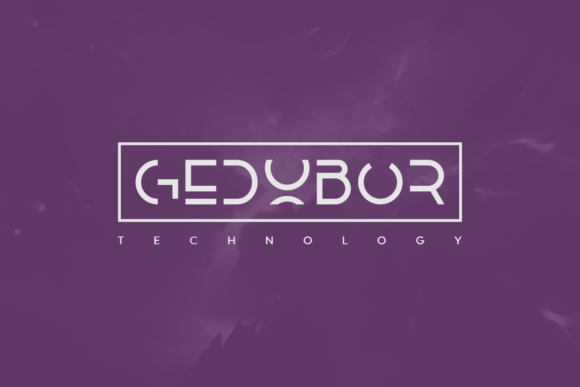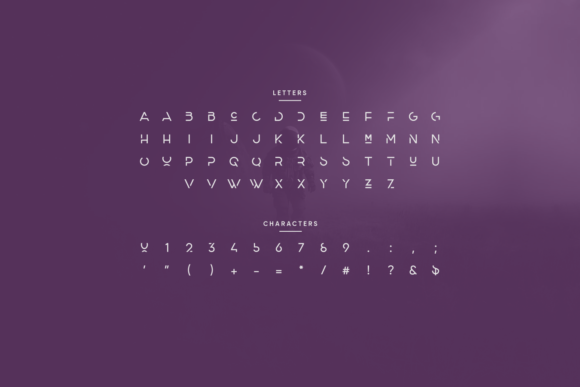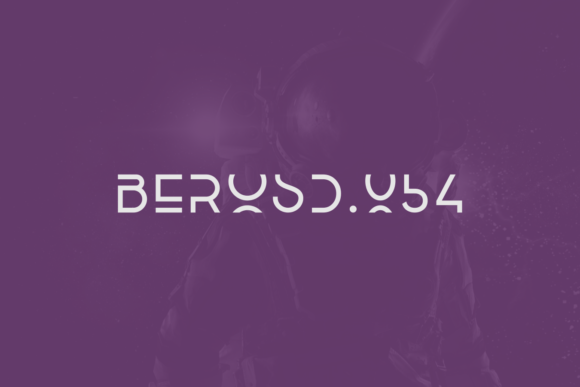
The Birth of a Timeless Design
Have you ever been so captivated by a font that you knew it would be the perfect fit for your next design project? For many designers, this moment is a dream come true, and it’s exactly what happens when you come across the Bospore Font. This stylish, clean, and minimalistic font exudes luxury and elegance, making it a perfect choice for any business or branding project.
With two unique styles and dynamic cuts, the Bospore Font is a versatile tool that can be used in a variety of applications, from logos to brochures and posters. Its geometric sans and unfinished impressions create a sophisticated effect, while the harmonious combination of uppercase and lowercase matching accents support the best legibility.
Bospore Font Key Features
- Font Family: Bospore Font is a unique, modern sans-serif font with a distinctive character set.
- Language Support: Bospore Font supports multiple languages, including Latin, Cyrillic, and Greek scripts, making it ideal for global designs.
- Unique Characteristics: The font features a distinctive rounded edge and a unique x-height, giving it a modern and sleek appearance.
Bospore Font Review
Overall, I think the Bospore Font has some great qualities, but also some areas that need improvement. Let’s dive into the good and the not-so-good.
- ✨ The Bospore Font has a unique and modern aesthetic that’s perfect for digital design projects.
- ✨ The font is highly legible, even at smaller font sizes, making it great for body text and other long-form content.
- ✨ The font’s versatility allows it to be used in a variety of contexts, from headings to footers.
- ⚠️ The Bospore Font can feel a bit too playful and whimsical for more formal or professional projects.
- ⚠️ Some users may find the font’s irregular shapes and letterforms to be distracting or hard to read at first glance.
- ⚠️ The font’s weight and contrast could be improved to make it more suitable for high-contrast designs.
In conclusion, the Bospore Font is a great choice for modern and playful designs, but may not be the best fit for more formal or professional projects. With some tweaks and adjustments, I think this font has a lot of potential.
For best results, use Bospore Font in headings and titles to add a touch of elegance and sophistication.
- Travel and adventure branding
Alternatives to Bospore Font for Designers
Playfair Display is an elegant, high-end serif font that is perfect for luxury branding, fashion, and high-end packaging designs. It features intricate details and flourishes, making it an ideal choice for designers who want to add sophistication and luxury to their designs.
Compared to Bospore Font, Playfair Display is more ornate and luxurious, while Bospore Font is more minimalist and modern. Playfair Display is best used for headings and titles, while Bospore Font is better suited for body text.
Merriweather is a classic, serif font that is perfect for academic, literary, and professional designs. It features a strong, timeless feel that is both elegant and sophisticated.
Compared to Bospore Font, Merriweather is more traditional and conservative, while Bospore Font is more modern and edgy. Merriweather is best used for body text, while Bospore Font is better suited for headings and titles.